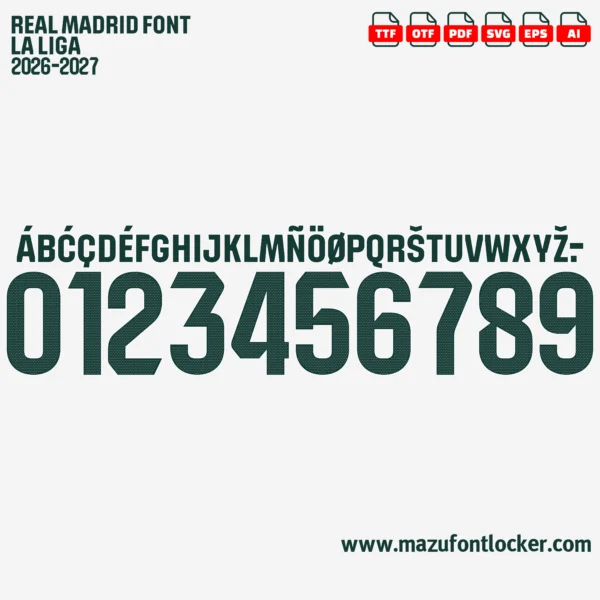
Real Madrid La Liga 2026-2027 Font Vector – Epic Los Blancos Masterpiece
This font captures the unstoppable, precision-forged lettering inspired by Real Madrid’s iconic pure-white identity, proud Spanish heritage, legendary Los Merengues tradition, and fearless world-conquering football spirit — delivering premium authenticity and explosive match-day energy for professional jersey mockups, football graphics, sports branding, fan designs, and high-end creative projects.
Real Madrid La Liga 2026-2027 Font Vector – Stunning White & Gold Typeface
The Real Madrid La Liga 2026-2027 Font Vector is a premium typeface that accurately recreates the distinctive match lettering associated with Real Madrid for the 2026-2027 La Liga season. This high-quality vector font kit captures the bold, clean, and instantly recognizable typography that perfectly complements the club’s iconic white and gold identity.
Designed for professional designers, football enthusiasts, jersey collectors, and passionate Real Madrid supporters, the Real Madrid La Liga 2026-2027 Font Vector delivers exceptional authenticity for creating realistic jersey mockups, football merchandise, social media graphics, match posters, squad designs, and custom fan artwork. Every character has been carefully recreated to reflect the powerful and precise visual style of one of the world’s most successful and prestigious football clubs.
Why Choose Real Madrid La Liga 2026-2027 Font Vector
This font stands out thanks to its precise vector construction and authentic club-inspired styling. Every letter and numeral has been meticulously recreated to match the distinctive football lettering aesthetic associated with Real Madrid during the 2026-2027 La Liga campaign and its domestic and European ambitions.
Whether you’re producing professional football kit templates, custom jersey concepts, or eye-catching football content, the Real Madrid La Liga 2026-2027 Font Vector delivers a genuine match-ready appearance inspired by the identity of Los Blancos.
The lettering featured in the Real Madrid La Liga 2026-2027 Font Vector combines clean geometric lines with bold modern proportions. The result is a premium and highly readable typeface that reflects Real Madrid’s proud football heritage, iconic white and gold colors, Madrid identity, and passionate global fanbase.
Real Madrid La Liga 2026-2027 Season
The Real Madrid La Liga 2026-2027 Font Vector is an independently designed typeface package inspired by the official shirt lettering and visual identity associated with Real Madrid for the 2026-2027 La Liga season. It has been carefully recreated for football enthusiasts, graphic designers, collectors, jersey creators, and fans producing custom football concepts, digital artwork, and fan-made projects. Please note that this is a fan-made design resource and is not an official product of Real Madrid, La Liga, UEFA, or any associated organization.